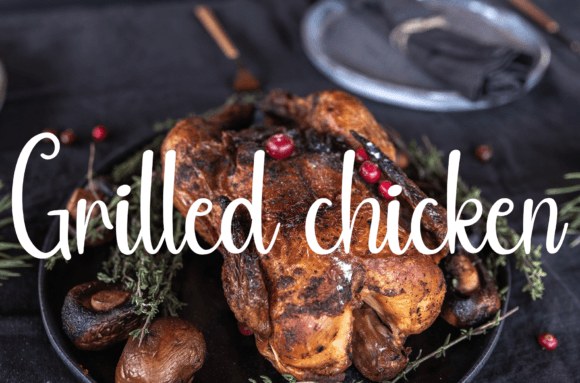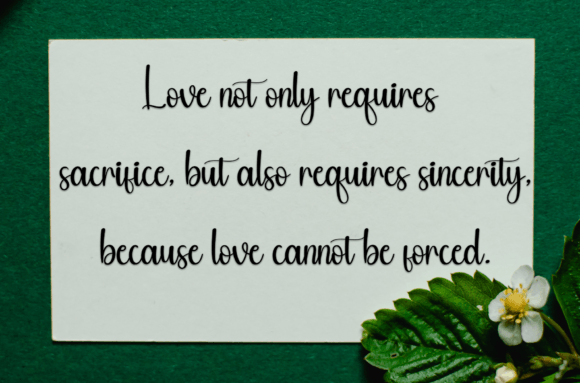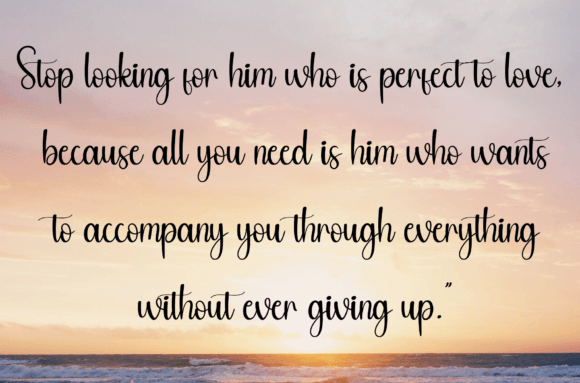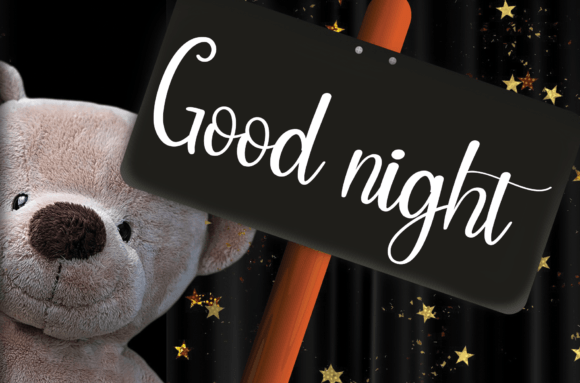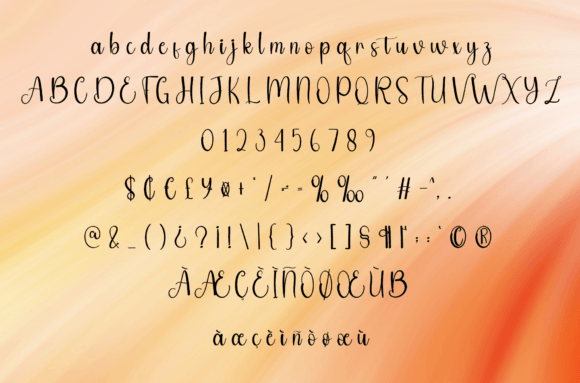
Hello Friday Font: Add a Sweet and Friendly Touch to Your Designs
Are you looking for a font that can add a playful and charming touch to your designs? Look no further than the Hello Friday font! This sweet and friendly handwritten font is perfect for creating eye-catching wedding invitations, cards, and other designs that require a fun and whimsical feel.
What is Hello Friday Font?
Hello Friday is a beautiful, handmade font that exudes warmth and friendliness. Its cute and fun design makes it an ideal choice for designers and crafters who want to add a personal touch to their work. The font’s elegant and flowing script is perfect for creating beautiful wedding invitations, greeting cards, and other paper crafts.
Key Features of Hello Friday Font
- Sweet and Friendly Design: The Hello Friday font has a sweet and friendly design that is sure to capture the attention of your audience.
- Handwritten Style: The font’s handwritten style gives it a personal and unique touch that sets it apart from other fonts.
- Cute and Fun: The font’s cute and fun design makes it perfect for creating designs that require a playful touch.
- High-Quality Design: The font is designed with high-quality craftsmanship, ensuring that it looks great in any design.
Uses of Hello Friday Font
The Hello Friday font is versatile and can be used for a variety of design projects. Here are some of the most popular uses of this font:
- Wedding Invitations: The font’s elegant and flowing script makes it perfect for creating beautiful wedding invitations.
- Greeting Cards: The font’s cute and fun design makes it ideal for creating greeting cards for special occasions.
- Paper Crafts: The font’s handmade style makes it perfect for creating paper crafts, such as scrapbooking and card making.
- Digital Designs: The font can also be used for digital designs, such as social media graphics and blog posts.
Why Choose Hello Friday Font?
There are many reasons why you should choose the Hello Friday font for your design projects. Here are a few:
- Unique Design: The font’s unique design sets it apart from other fonts, ensuring that your designs stand out.
- High-Quality Design: The font is designed with high-quality craftsmanship, ensuring that it looks great in any design.
Tips for Using Hello Friday Font
Here are a few tips for using the Hello Friday font in your design projects:
- Use it for Headings: The font’s elegant and flowing script makes it perfect for use as headings in your designs.
- Pair it with Other Fonts: The font can be paired with other fonts to create a unique and interesting design.
- Experiment with Colors: The font looks great in a variety of colors, so don’t be afraid to experiment and find the perfect color for your design.
The Hello Friday font is a sweet and friendly handwritten font that is perfect for adding a fun and whimsical touch to your designs. Its cute and fun design makes it ideal for creating wedding invitations, cards, and other paper crafts. With its high-quality design, ease of use, and affordability, the Hello Friday font is a great choice for designers and crafters.